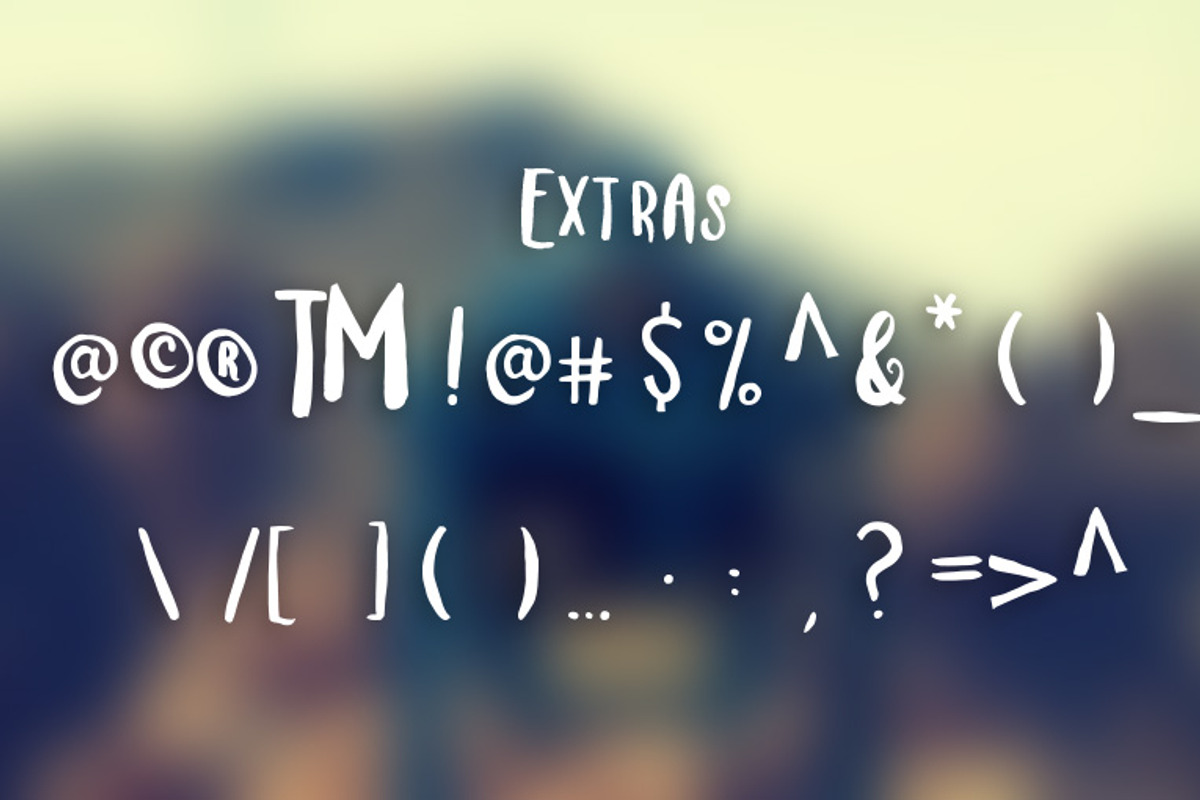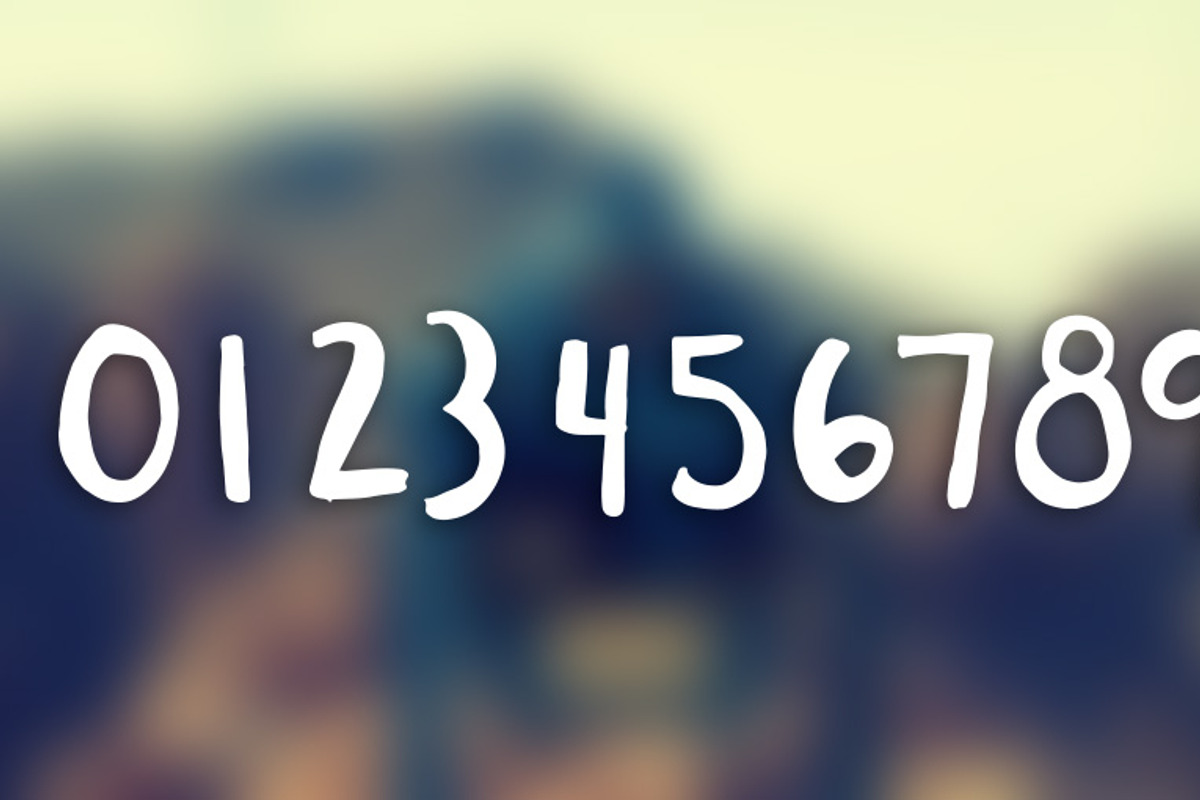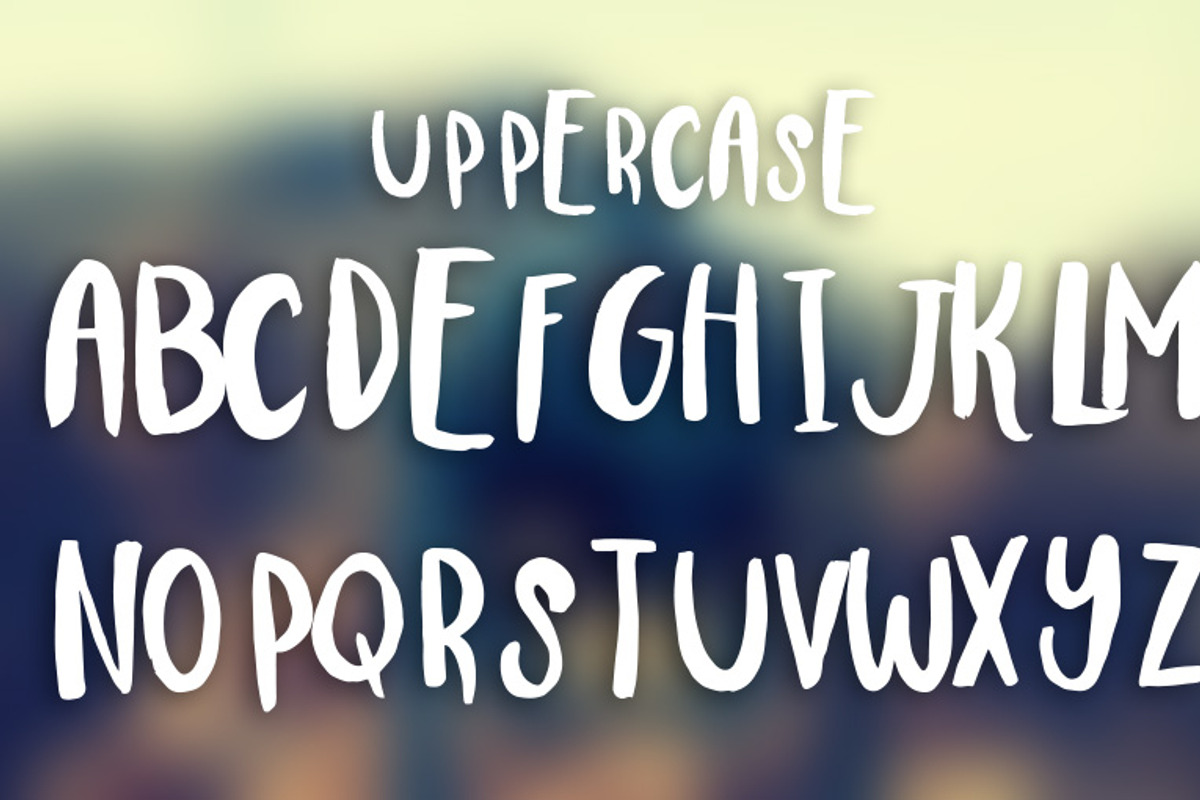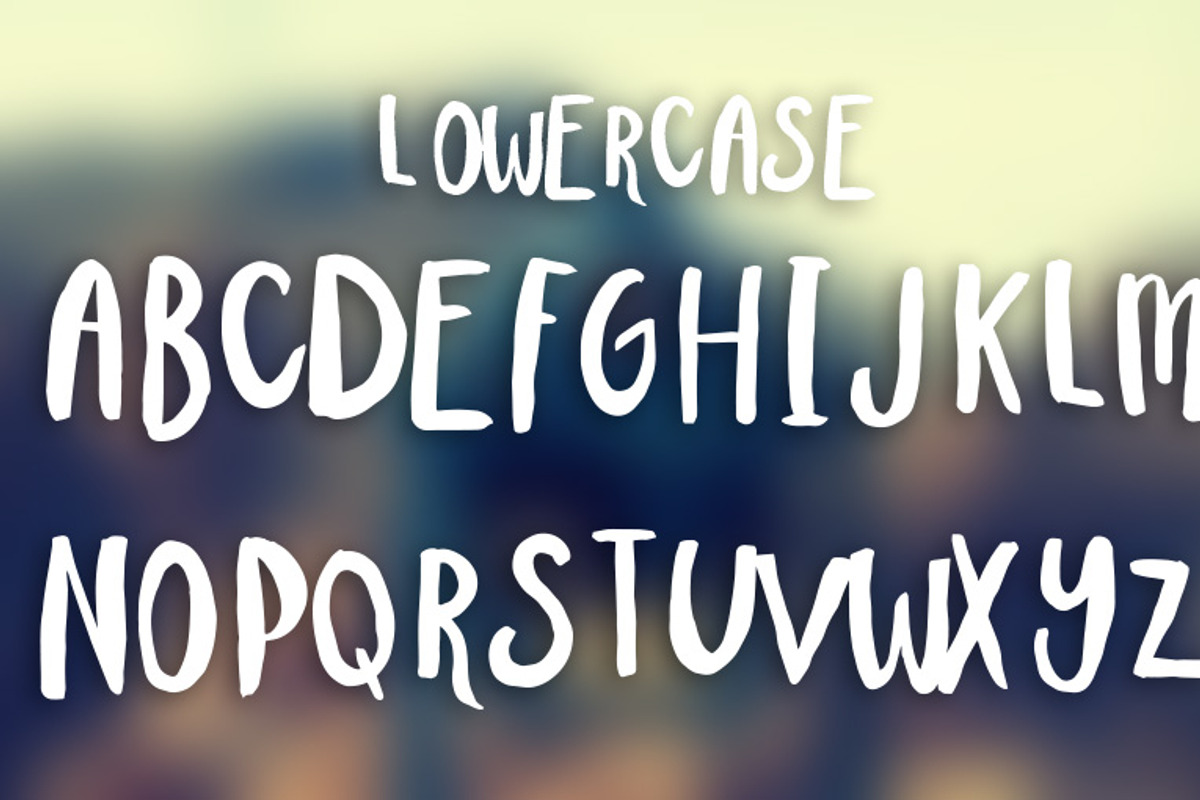
Trudy Hand Brushed Font
Trudy Hand Brushed Font by OnTheSpotStudio is a font selected for branding, posters, packaging, typography.
Why Trudy Hand Brushed Font is worth a look
Trudy Hand Brushed Font by OnTheSpotStudio fits naturally into Branding, posters, packaging, typography.